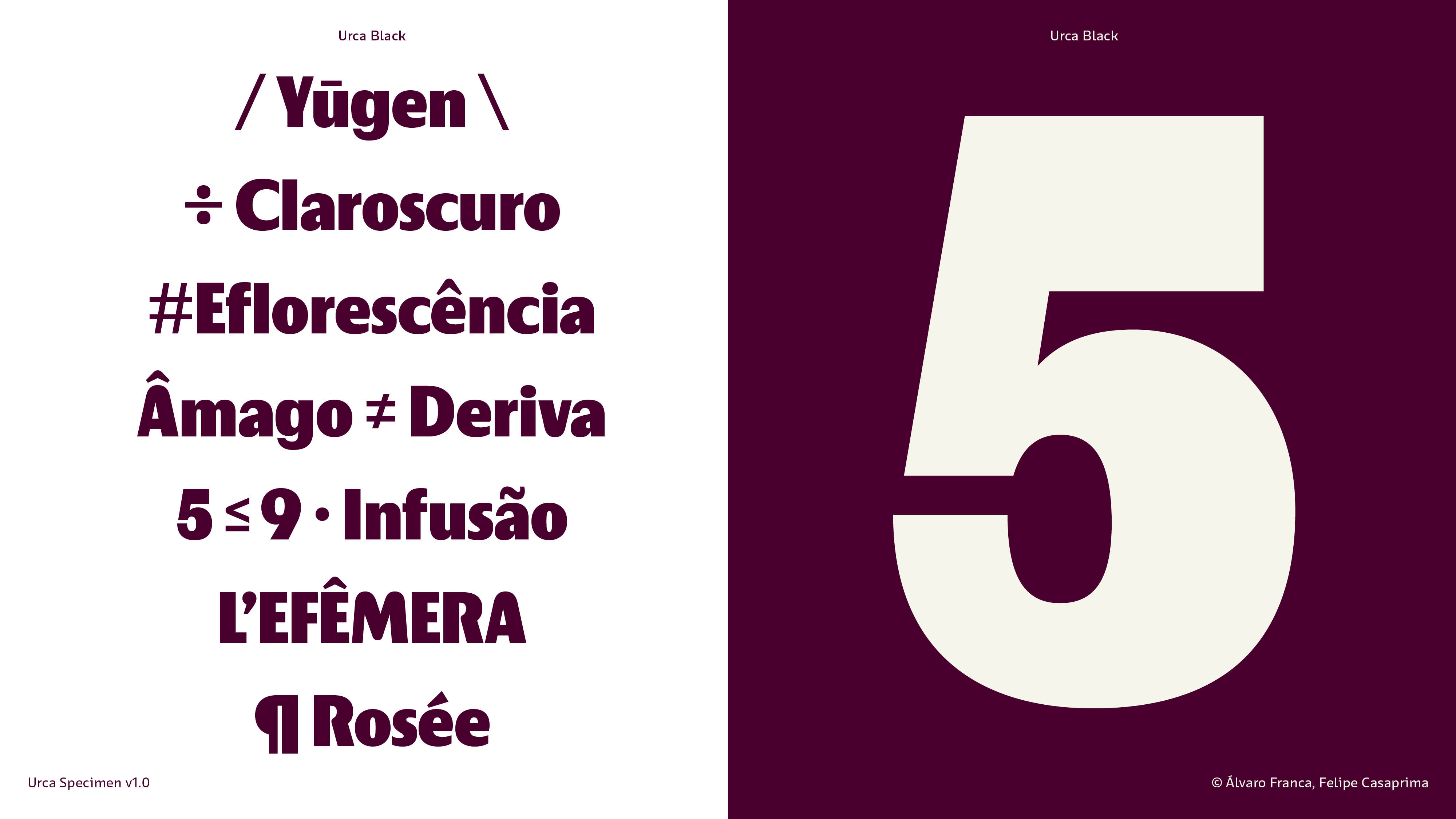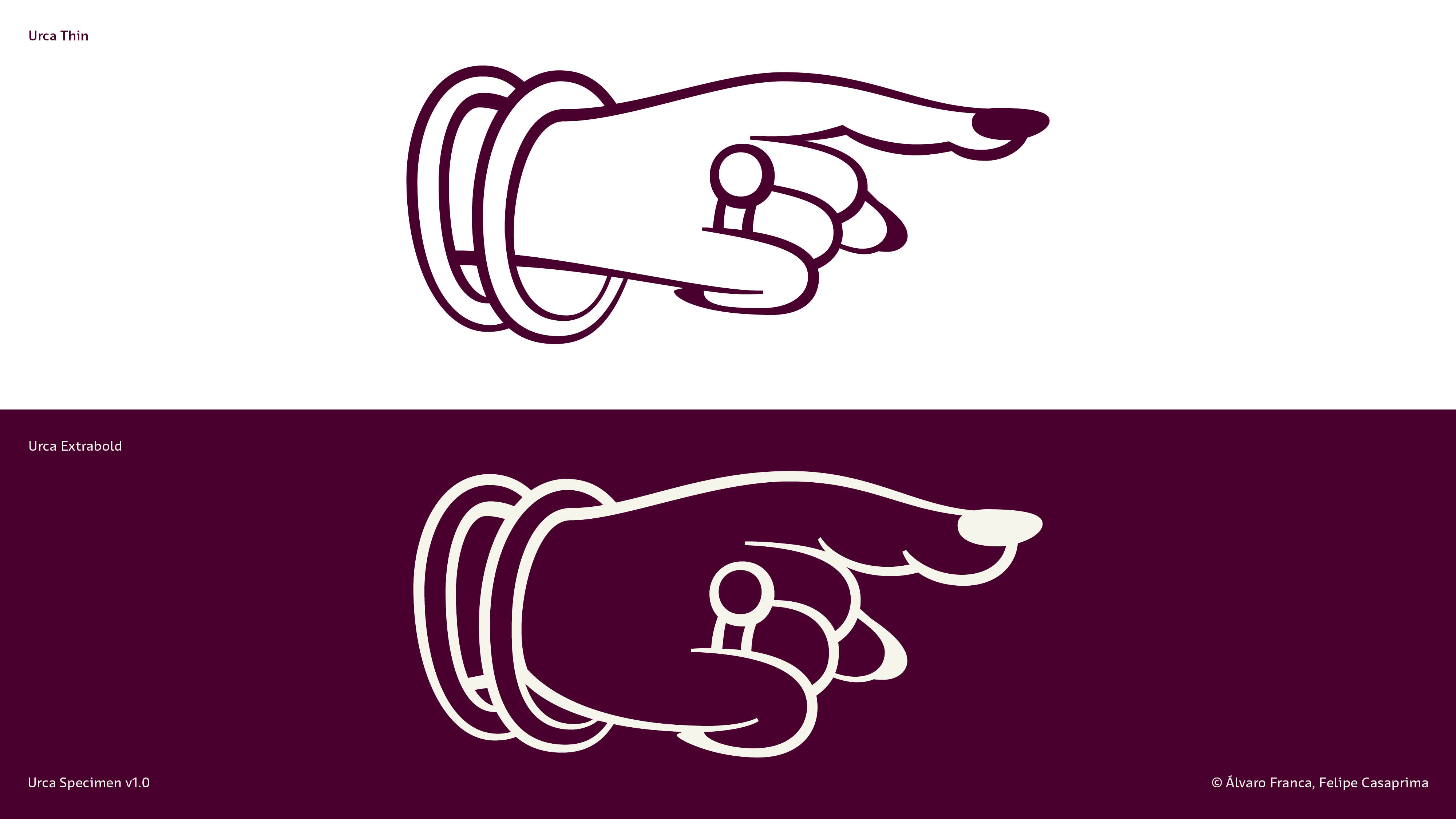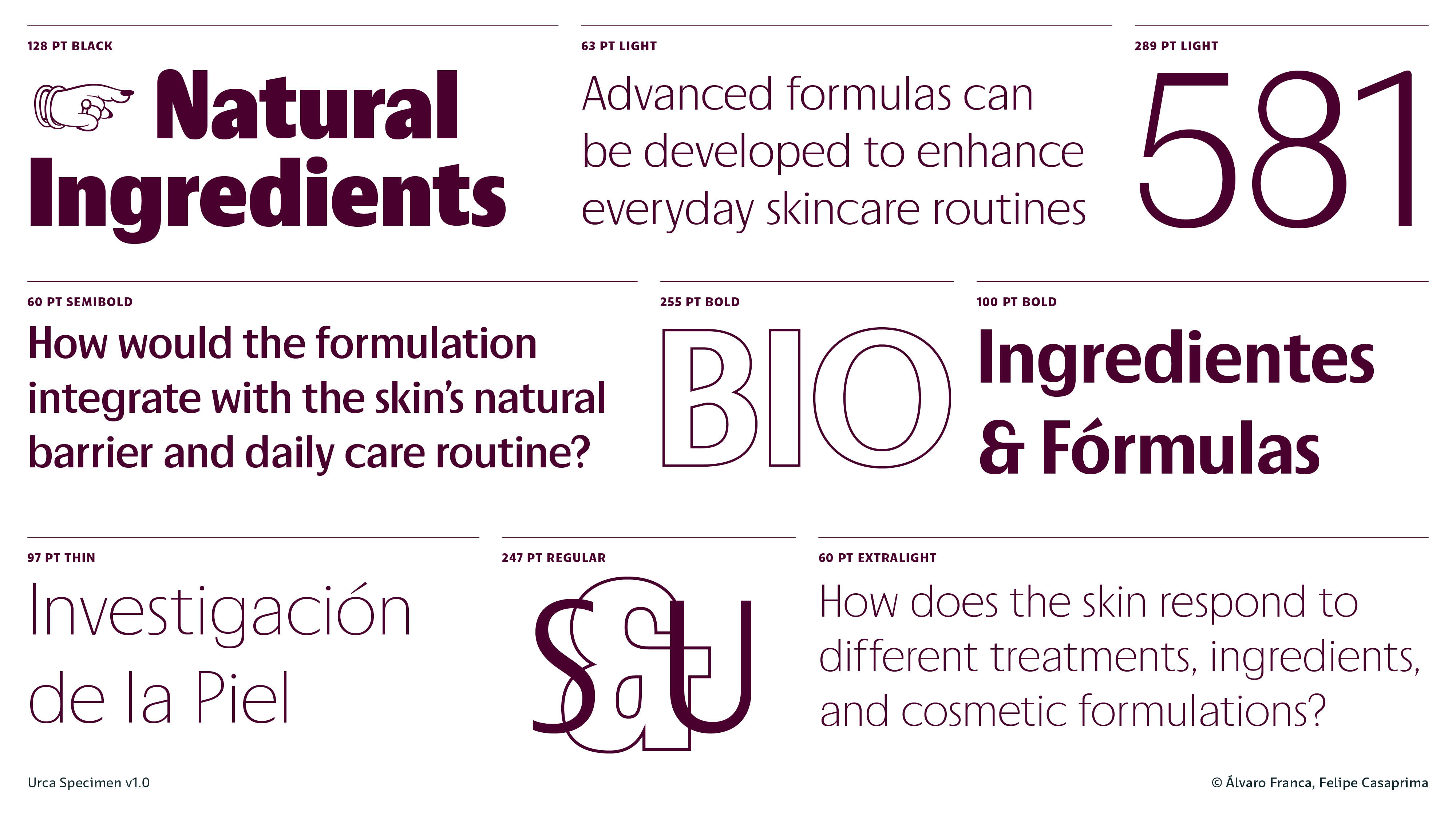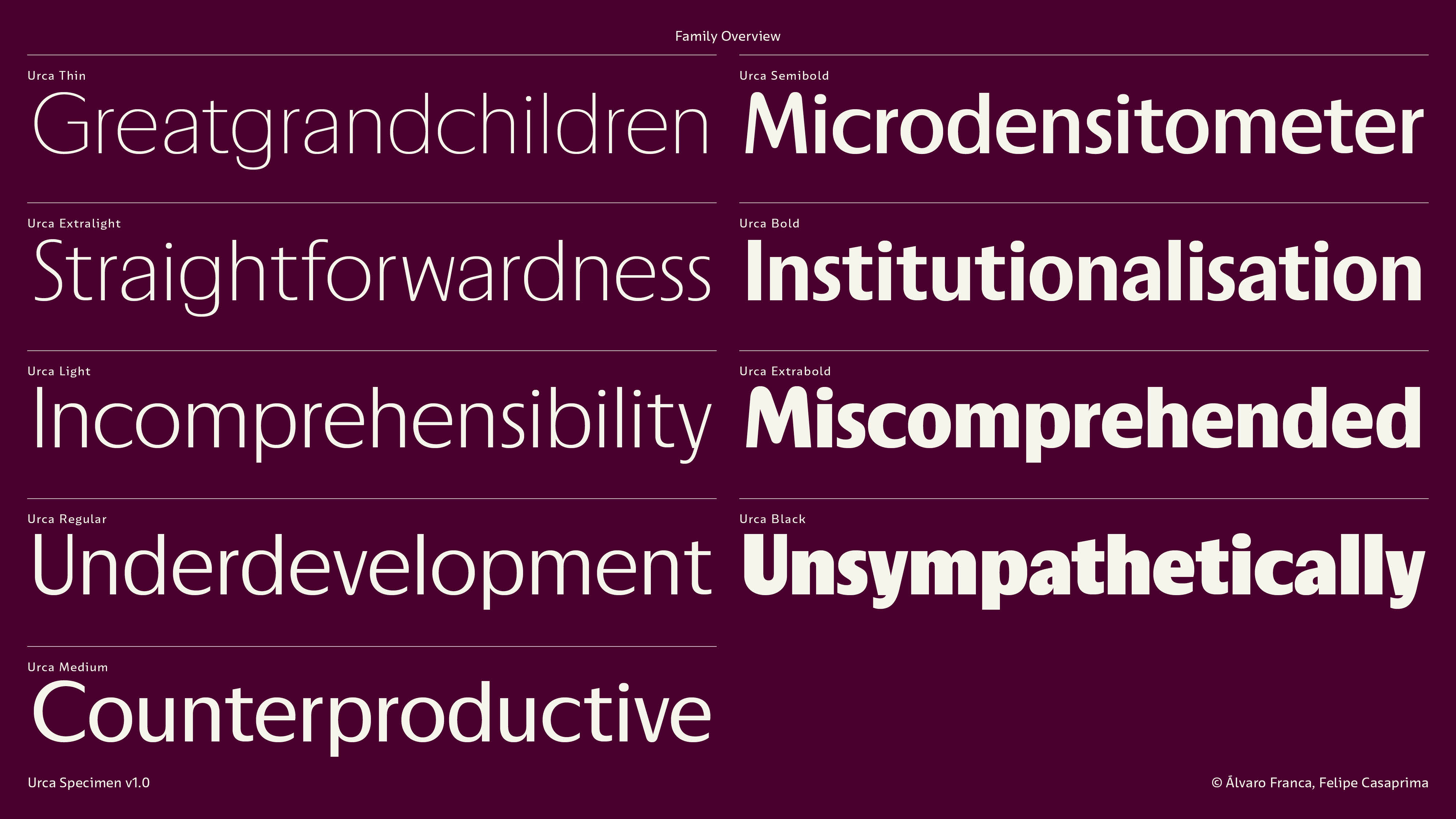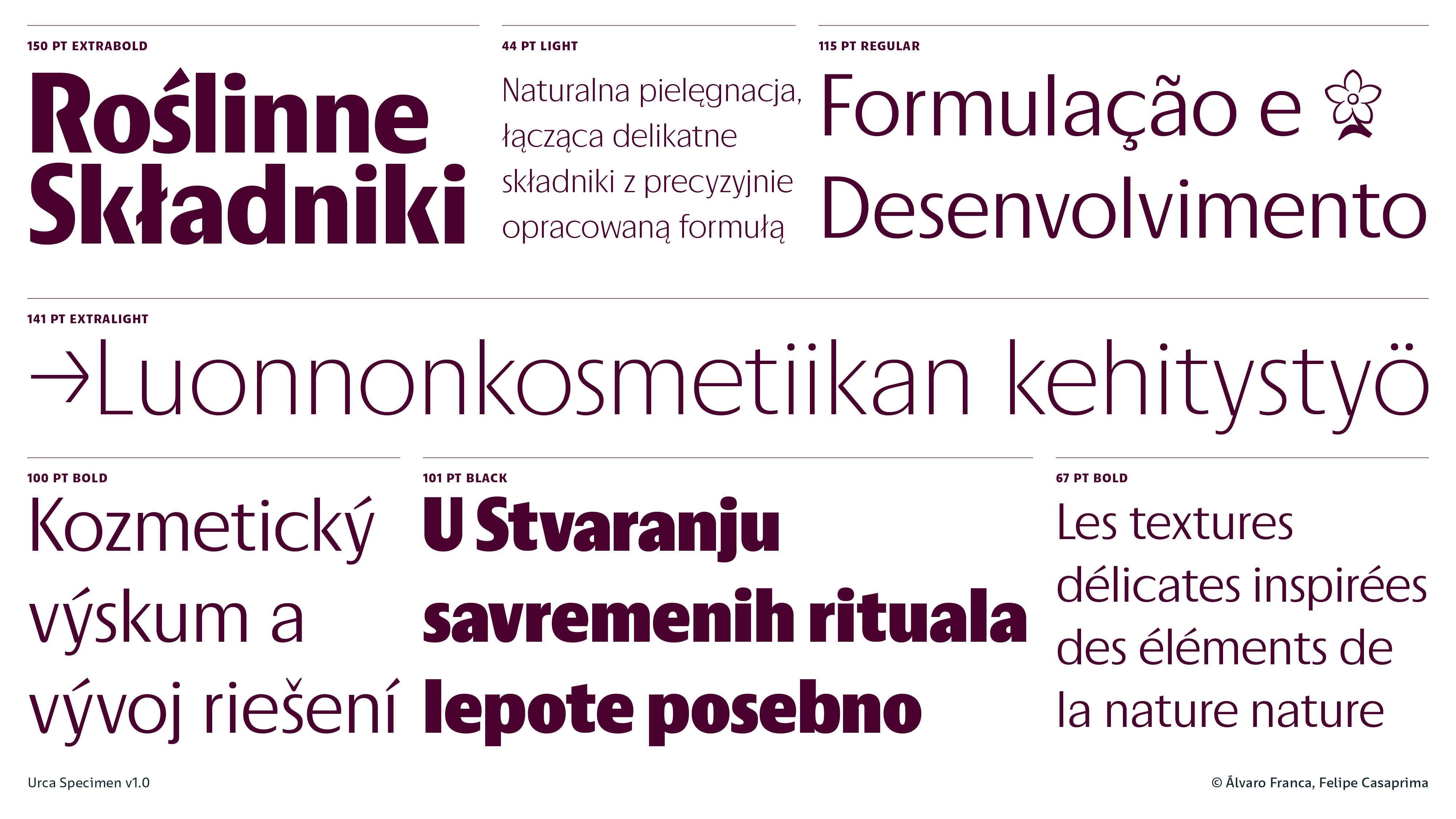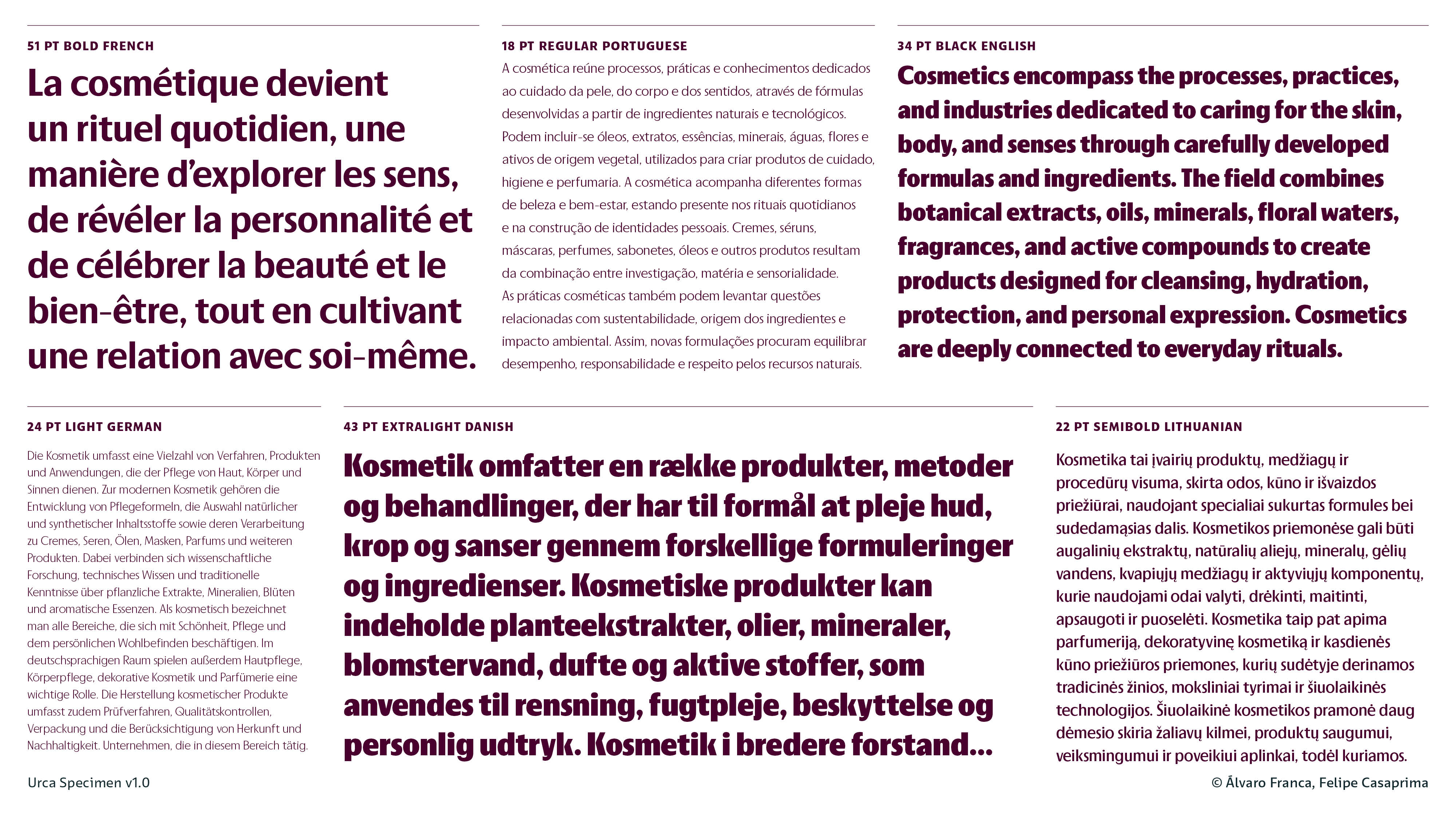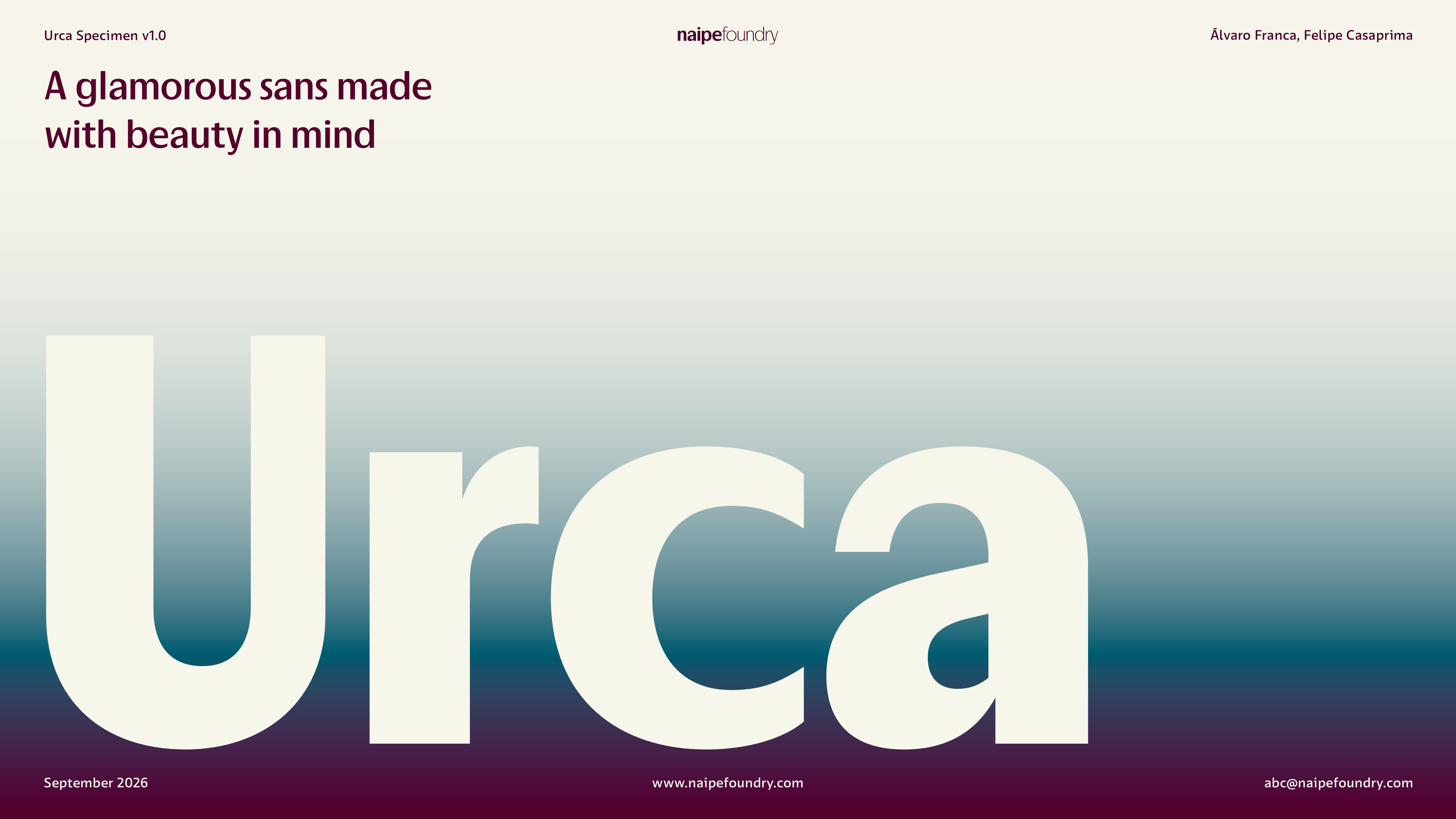
Urca
Thin Extralight Light Regular Medium Semibold Bold Extrabold BlackUrca Variable
Aa Aa Aa Aa Aa AaUrca is a contrasted sans inspired by the quiet glamour of Rio’s Urca neighborhood. Once home to a legendary casino where lavish balls brought old-world glamour to the city, Urca is a place where time stood still. This 9-weight family brings that same timelessness: sophisticated but warm and relaxed, something that feels effortlessly luxurious rather than dressed up for the occasion. Made with beauty, cosmetics and fashion in mind, Urca brings a little of that old Rio glamour to packaging and branding.